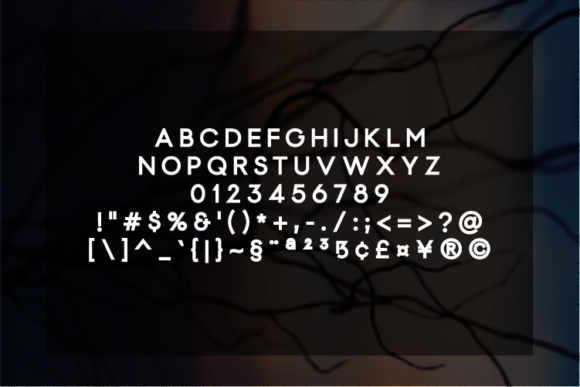
Discover the Elegance of Gabriely Black Font: A Modern Sans Serif Typeface
In the realm of typography, a font can make or break the visual appeal of a design project. For designers and crafters seeking a clean, modern, and timeless look, the Gabriely Black Font is an essential asset to consider. This meticulously designed sans serif typeface has garnered attention for its simplicity, elegance, and versatility, making it a valuable addition to any designer’s toolkit.
The Design Philosophy Behind Gabriely Black Font
Gabriely Black Font is the result of a passion-driven design process, where attention to detail was paramount. The creators aimed to develop a typeface that embodies the essence of modern simplicity, ensuring that it can seamlessly integrate into various design projects, from digital platforms to print materials. The clean lines and sans serif characteristics of Gabriely contribute to its contemporary feel, allowing it to stand out in a crowded design landscape.
Key Features of Gabriely Black Font
- Clean and Modern Design: The Gabriely Black Font boasts a sleek and modern aesthetic, characterized by its clean lines and uncomplicated structure. This makes it an ideal choice for designers looking for a font that exudes professionalism and sophistication.
- Versatility: One of the significant advantages of the Gabriely Black Font is its versatility. It can be effectively used in a wide range of design projects, including but not limited to, branding, advertising, web design, and editorial content.
- Timeless Appeal: Despite being a modern typeface, Gabriely has a timeless quality to it. Its design avoids trends that may quickly become outdated, ensuring that projects maintain their relevance and aesthetic appeal over time.
- Attention to Detail: The development of Gabriely Black Font involved meticulous attention to detail, ensuring that every aspect of the typeface, from letterforms to spacing, contributes to its overall elegance and readability.
- Pairing with Other Fonts: While Gabriely Black Font is striking on its own, it can also be paired with other fonts to create contrast and hierarchy in your designs. Consider pairing it with serif fonts for a classic look or with other sans serifs for a more contemporary feel.
- Choosing the Right Color Scheme: The clean and modern look of Gabriely Black Font makes it adaptable to various color schemes. For a bold statement, use it in a contrasting color; for subtlety, opt for a monochromatic scheme or soft pastels.
- Experimenting with Sizes and Weights: The Gabriely Black Font comes in different weights, allowing for flexibility in design. Experiment with different sizes and weights to create visual interest and emphasize key elements in your project.
- Ease of Use: Its straightforward and intuitive design makes it easy to work with, even for complex projects.
- Professional Look: The font’s modern and clean design lends a professional look to any project, making it ideal for businesses and personal branding.
The Gabriely Black Font is more than just a typeface; it’s a design solution that offers a blend of modernity, simplicity, and elegance. Whether you’re working on a branding project, creating digital content, or crafting print materials, this font is sure to enhance your design with its timeless appeal. By incorporating Gabriely Black Font into your projects, you’re not just choosing a font; you’re investing in a design asset that will elevate your work to new heights of sophistication and style.